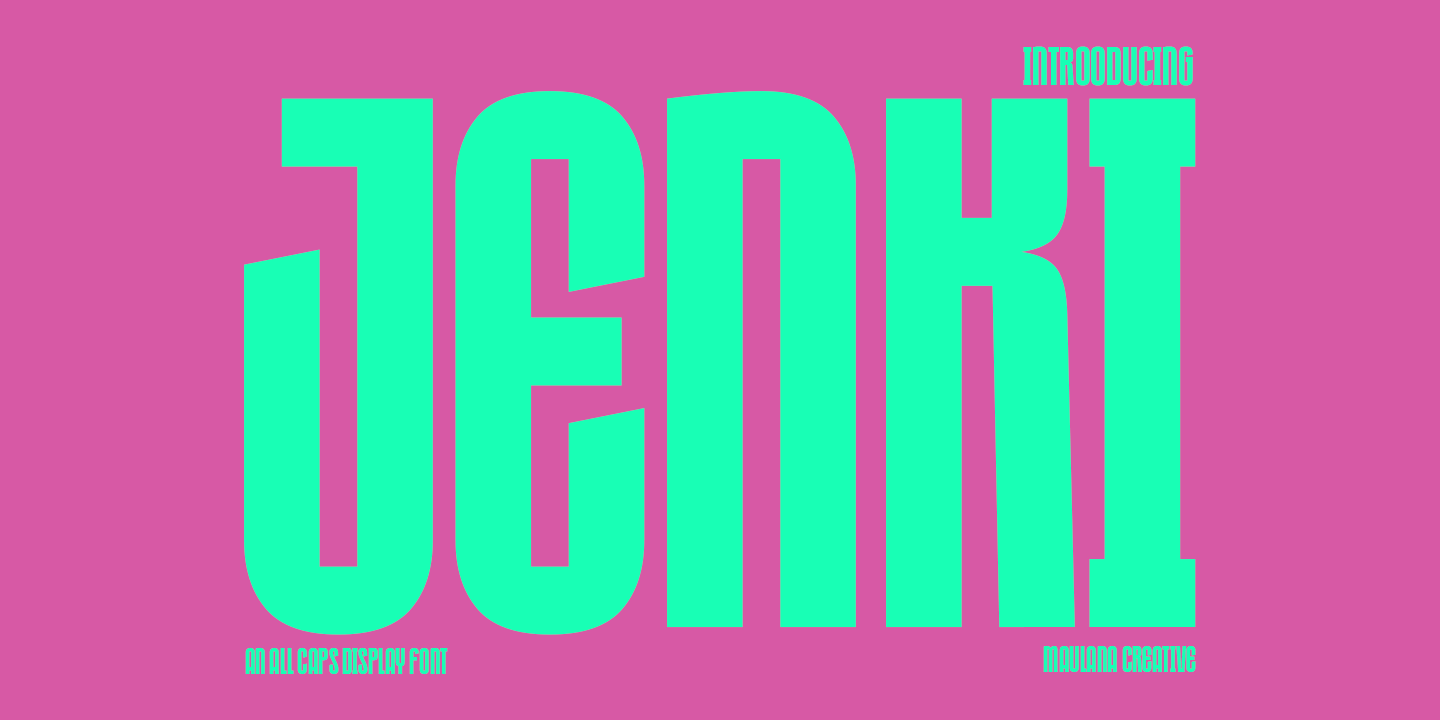
Usage Examples: MC Jenki Font is ideal for logo design, social media graphics, movie titles, book covers, and bold promotional materials.
Why It’s Exciting: Its all-caps, sans-serif style with playful ligatures and a medium stroke delivers a fun, modern vibe perfect for eye-catching designs.
Font Families: MC Jenki Font includes Regular and Oblique variants, offering versatility for creative projects across various platforms.
Make your designs stand out with MC Jenki Font Free Download! Designed by Gilang Maulana of Maulana Creative, this all-caps sans-serif display font brings a dynamic, fun character to your work with its medium stroke and subtle ligatures. Supporting over 100 languages, MC Jenki Font is perfect for logos, social media, and both short and long text applications. Download MC Jenki Font Free Download now to test its vibrant style, but secure a commercial license for professional use. With Regular and Oblique styles, this font adapts effortlessly to diverse design needs, ensuring readability and impact. Elevate your brand’s visibility with this engaging, multilingual typeface today